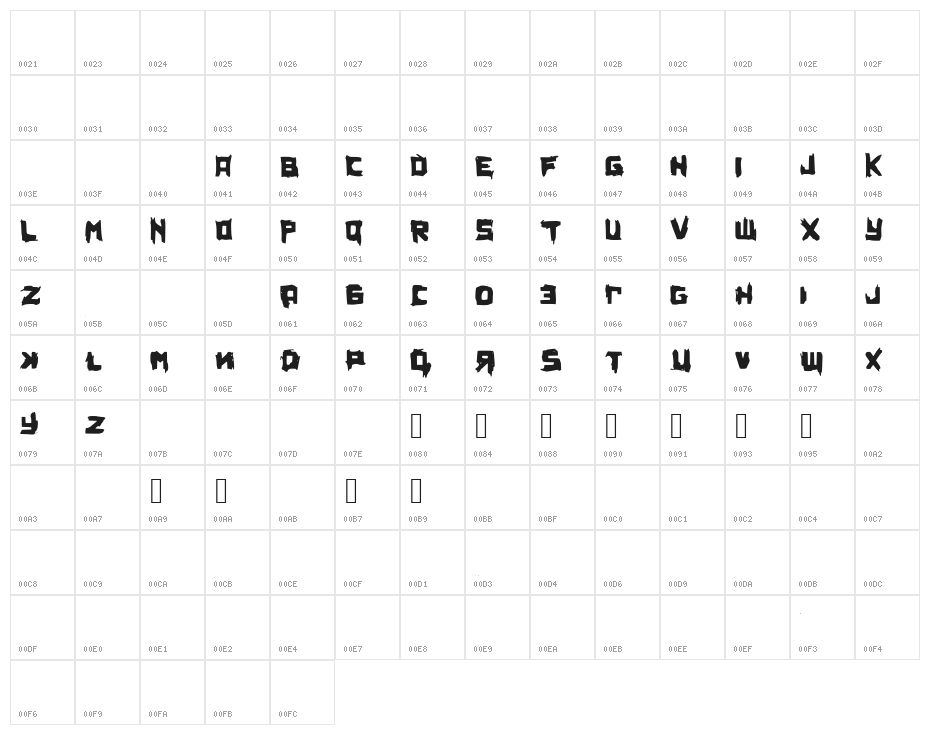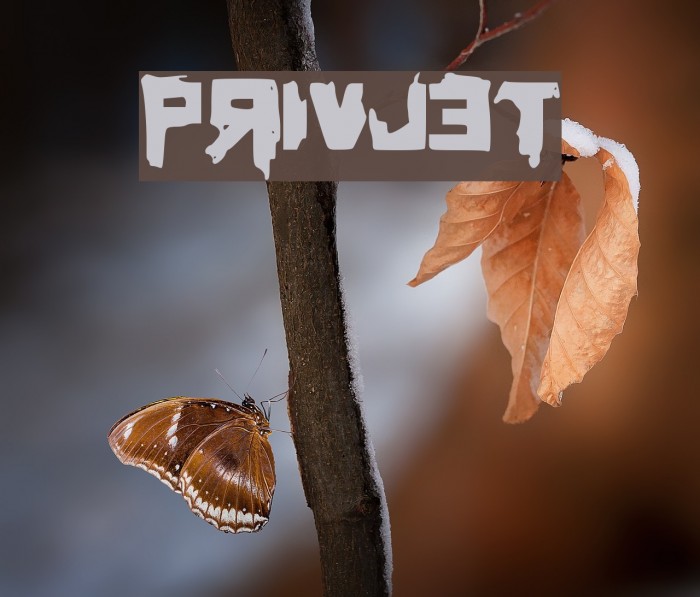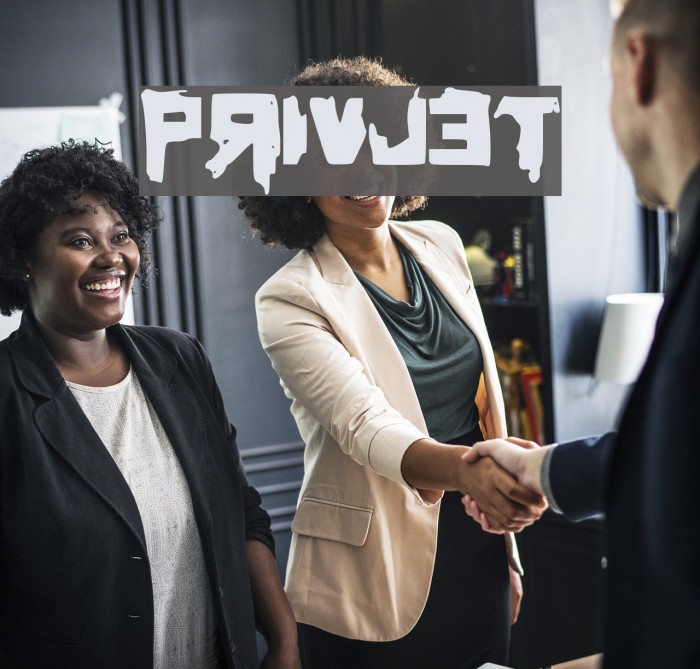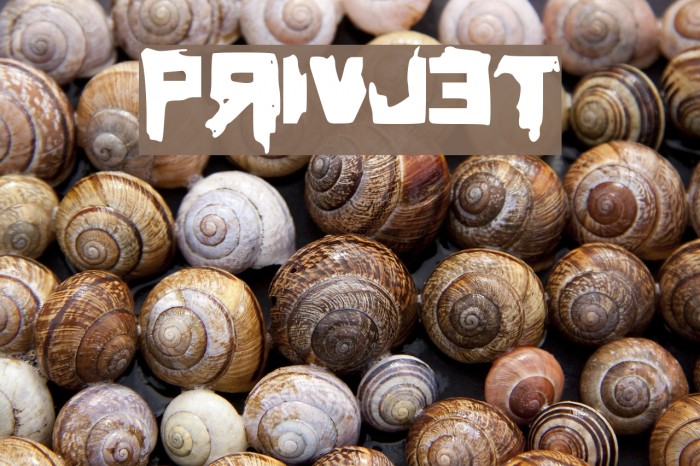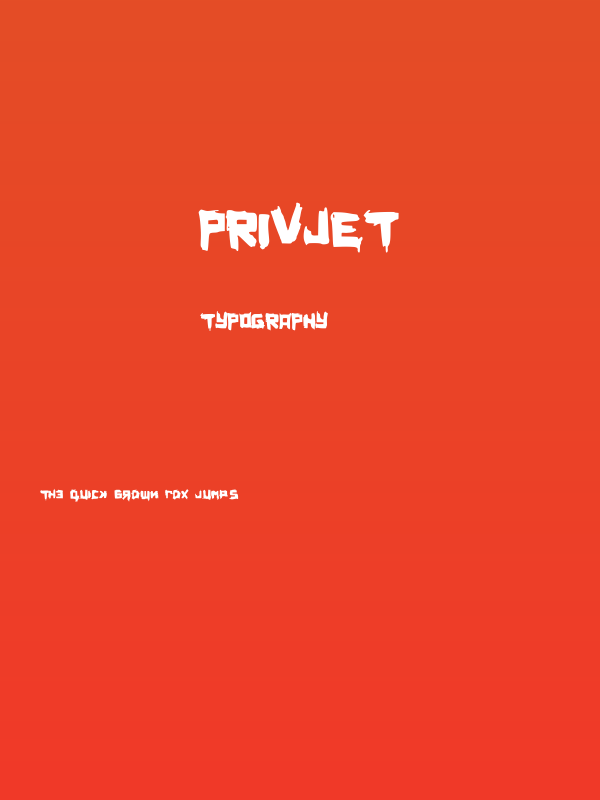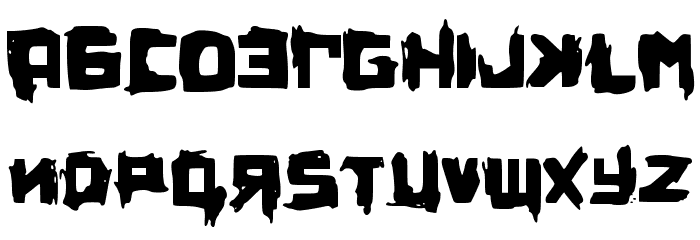
Privjet Font
Privjet Description
This font features a bold and aggressive design with sharp, angular edges and a distressed, grunge-like texture. The characters are heavily stylized, giving them a unique and edgy appearance. The uppercase and lowercase letters maintain a consistent style, with exaggerated serifs and uneven strokes that create a sense of movement and energy. The numbers and special characters follow the same design principles, ensuring a cohesive look across all elements. This font is perfect for projects that require a strong, impactful visual statement.
| Overall Style | Modern, Edgy |
| Proposed Projects | Ideal for music album covers, posters, streetwear branding, and video game graphics. |